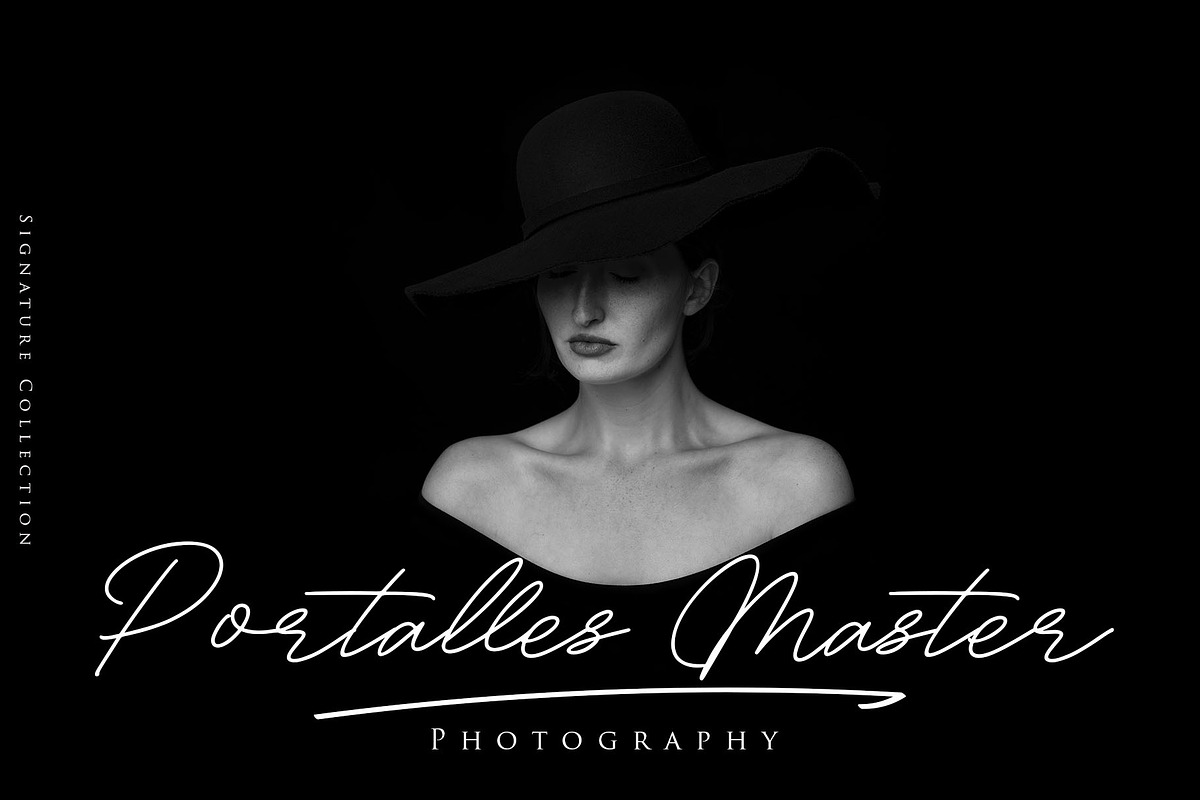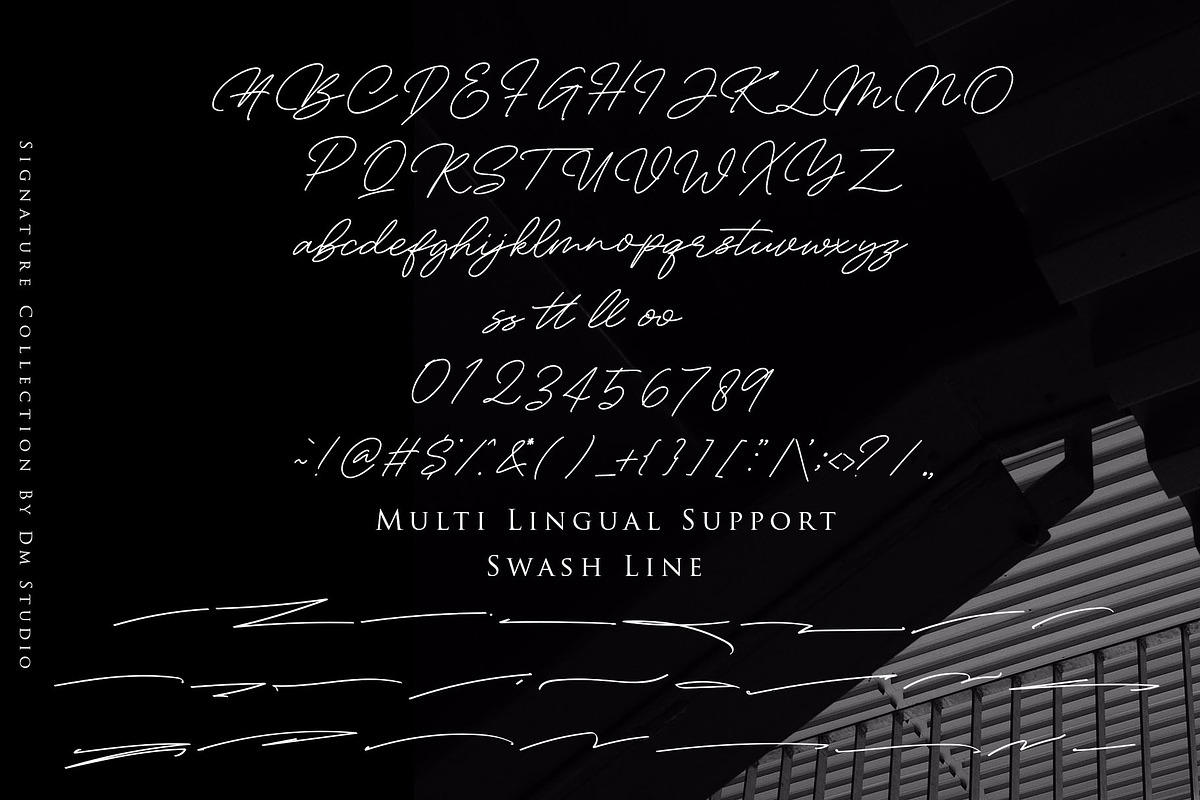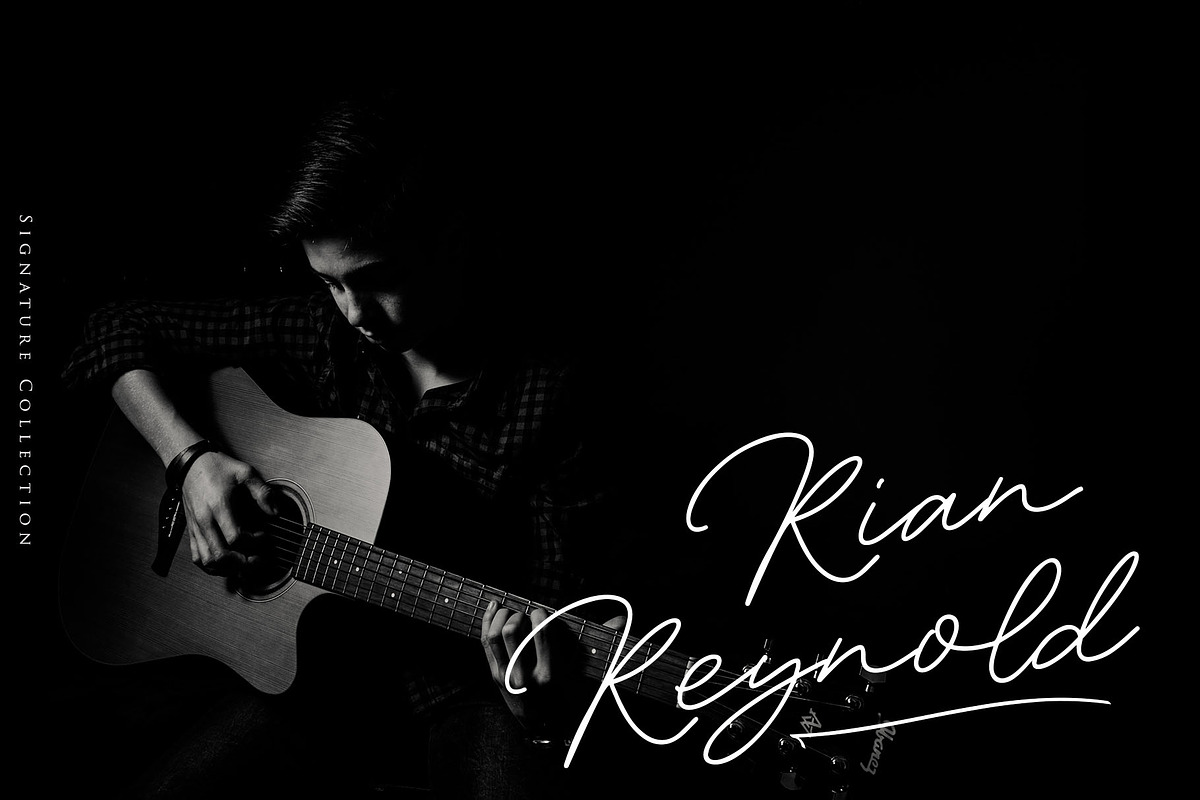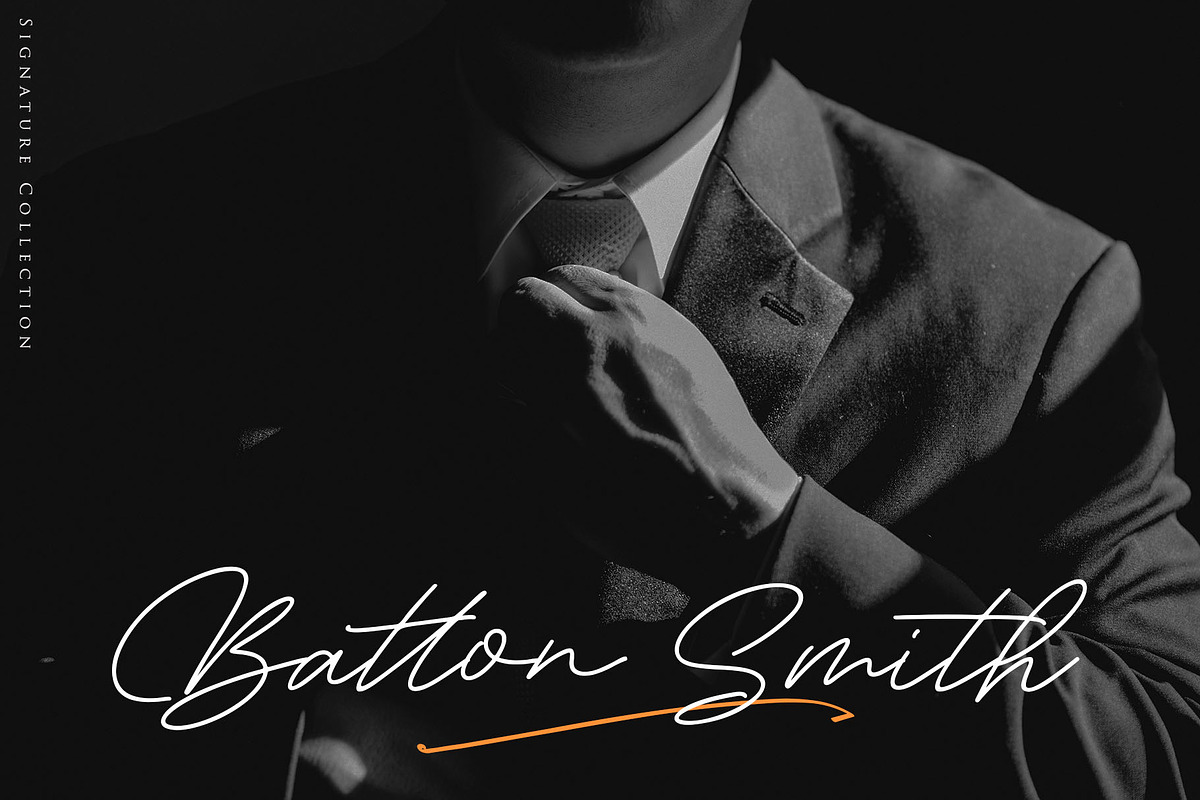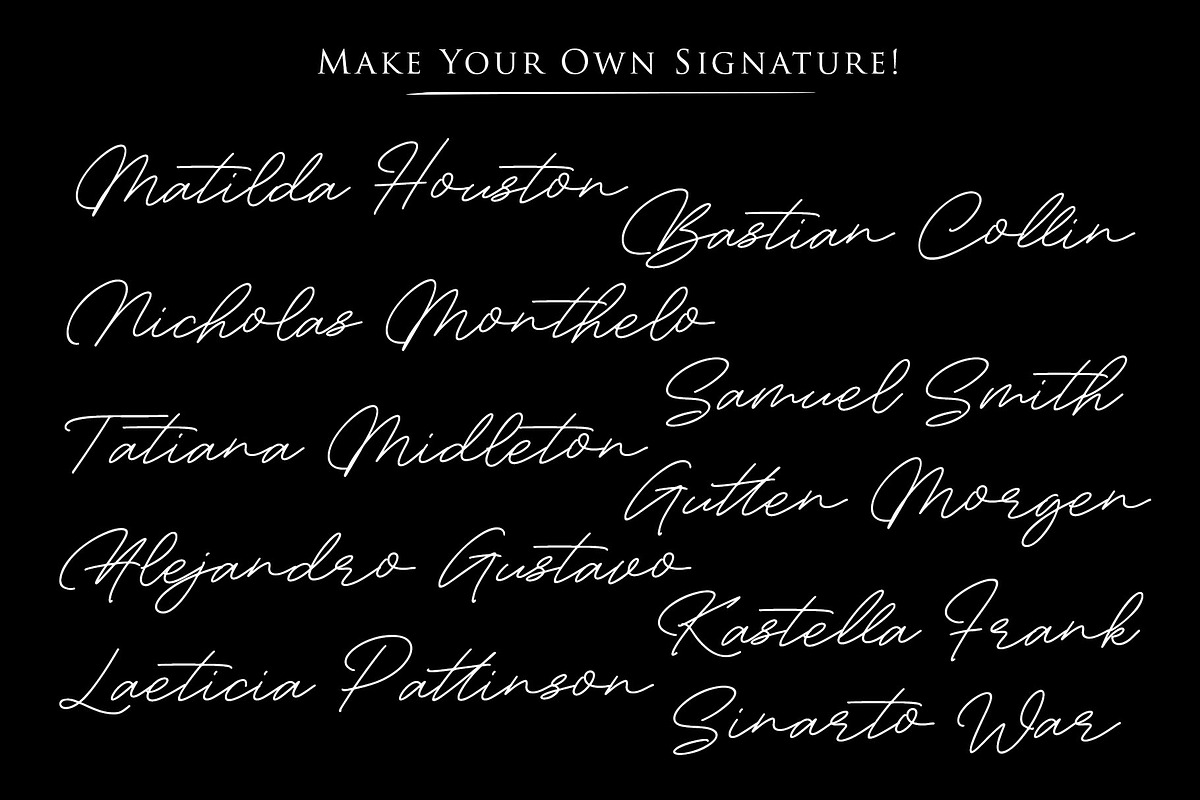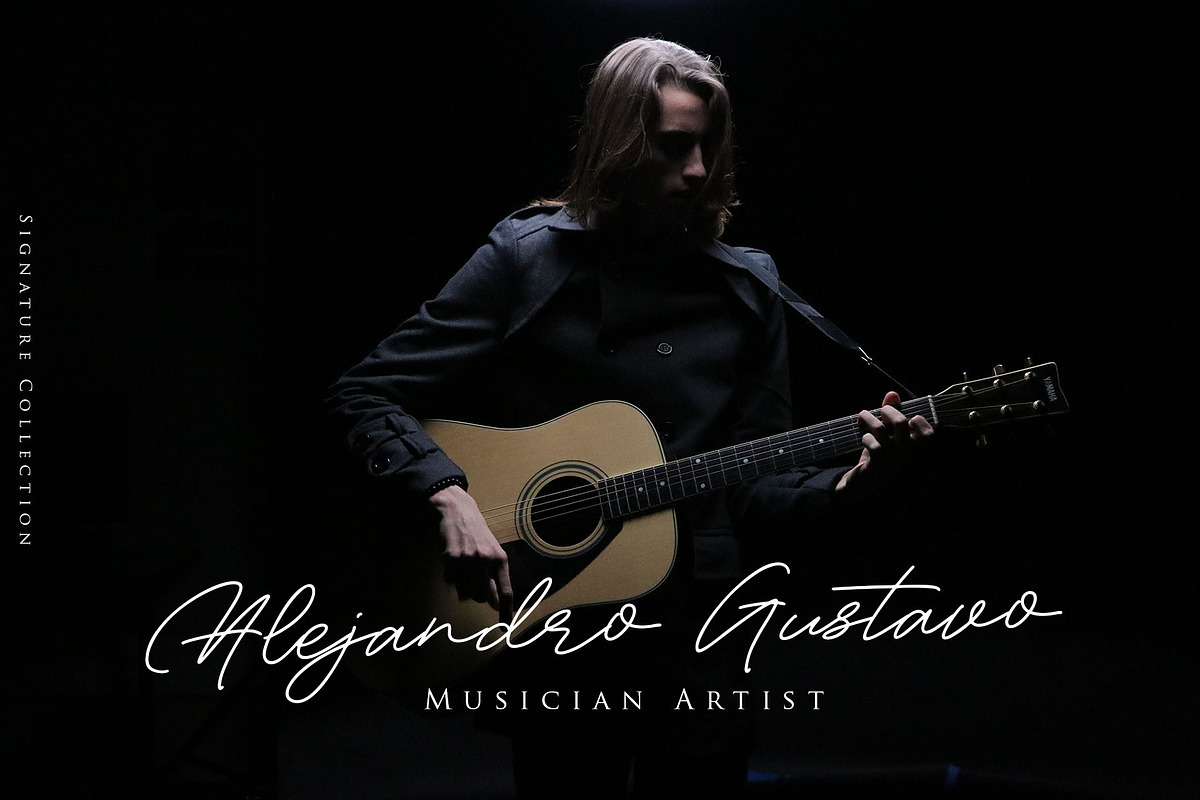
Bambang Signature Font V2.0
Bambang Signature V 2.0
Introducing our newest Signature Collection : Bambang Signature ! This is an elegant and classy of handwritten font, great for your digital Signature, business requirements, advertisements, branding, logos and much more!
Why Bambang Signature Font V2.0 is worth a look